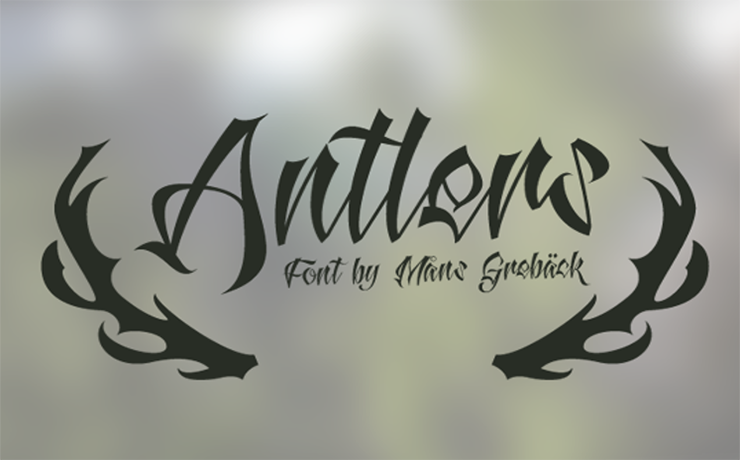
Create confident designs with the Antler Font. A script calligraphy typeface that comes with a versatile and well-designed look. Give this beautiful script font a try!
You can use this font for cards, signs, posters, labels, and more. Designed by Måns Grebäck that is a typeface designer based in Sweden.
The structure is made with slim to bold textures in which the designer has used thick strokes. When applied to any location, it will work uniquely along the baseline.
The corners of each letter are made with a sharpness that is maintained throughout the font. Therefore, it is really the best option for a stylish design according to the needs of the market.
You can see that this would be a great opportunity for those who want a unique touch in design.
Due to its unique look, it is a perfect choice for various designs. Like, book covers, unique emblems, game graphics, product designs, covers, posters, emblems, quotes, and shopping bags, special event cards, and many other places.